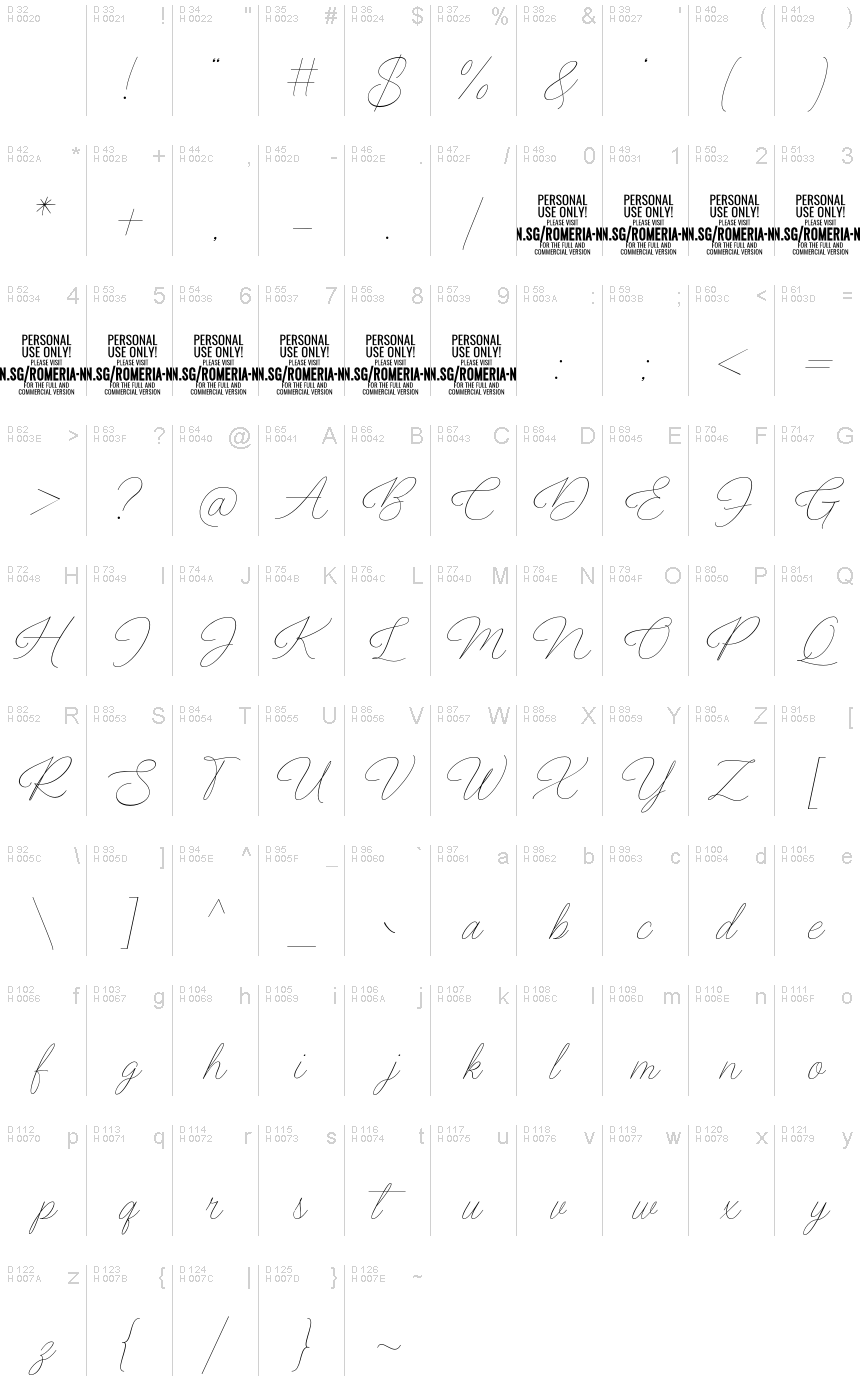
Romeria Notes PERSONAL USE Regular
Romeria Notes is a captivating handwritten font crafted by Mans Greback. Exuding a genuine, personal touch, this natural script font boasts fluid strokes that evoke the essence of a signature directly lifted from a cherished notebook. The light weight and organic flow of the letters create a delightful sense of authenticity, making Romeria Notes a visually appealing choice for a wide range of design projects.
Romeria Notes' versatility shines through its ability to lend a heartfelt, handcrafted aesthetic to branding materials, greeting cards, wedding invitations, and editorial layouts. Its casual yet refined appearance effortlessly conveys a sense of warmth and personality, making it a compelling option for designers seeking to infuse their work with a genuine, personalized touch.